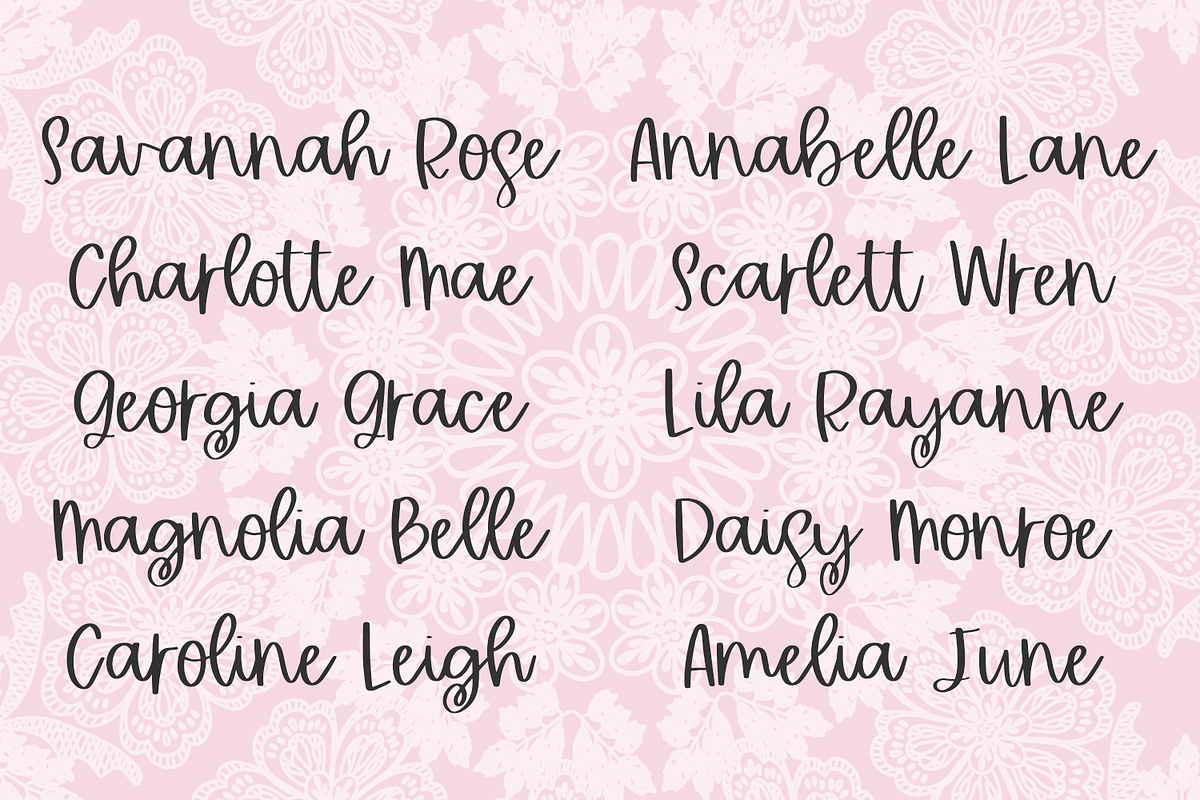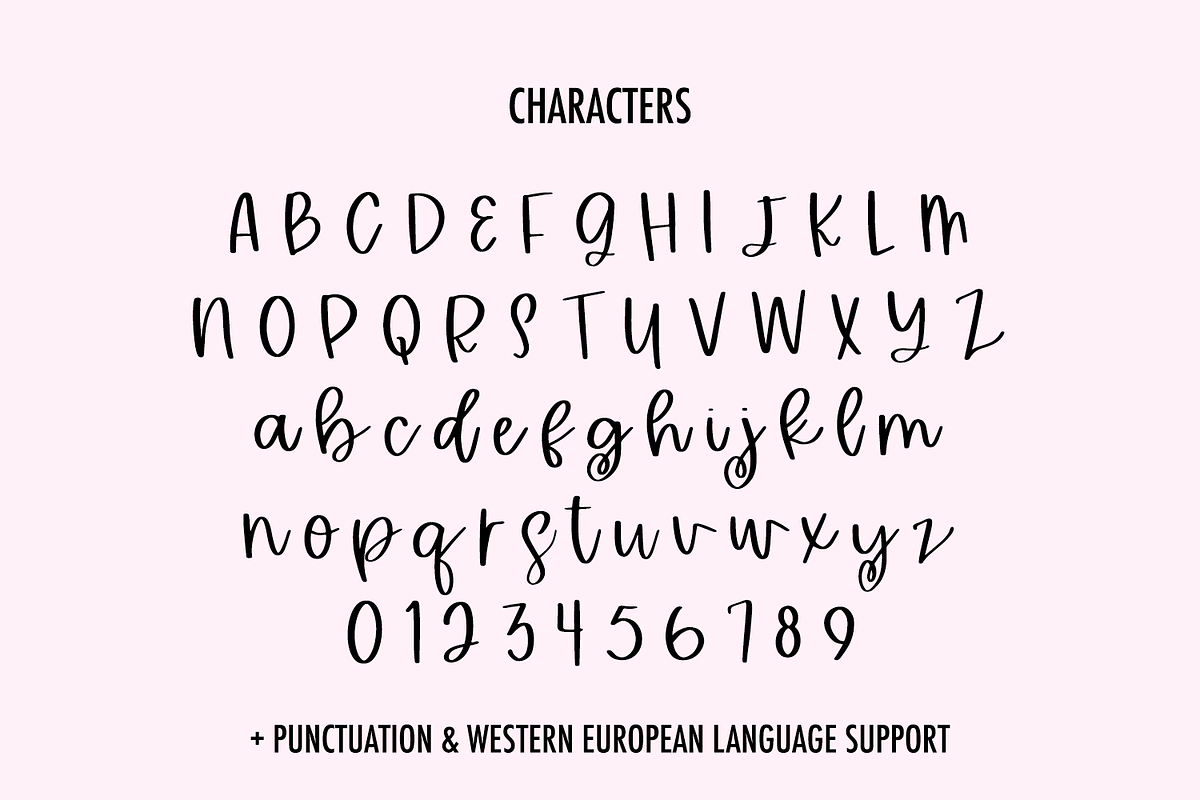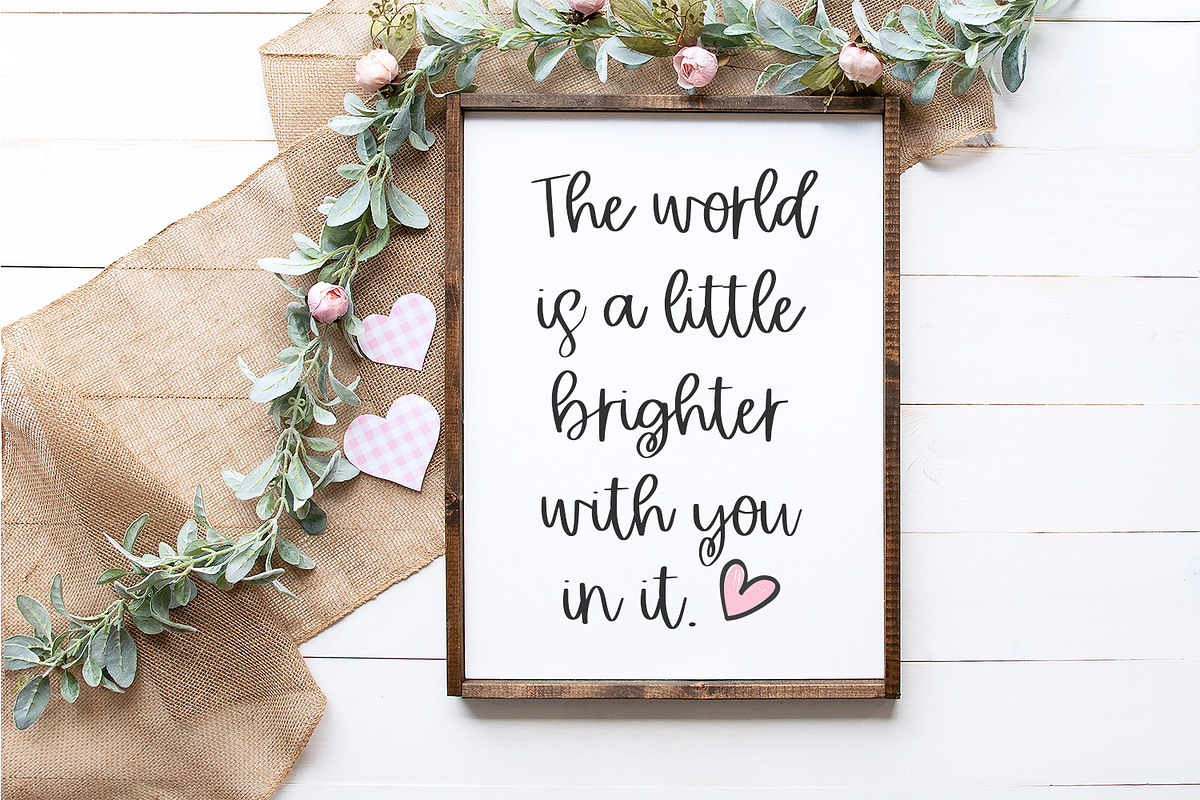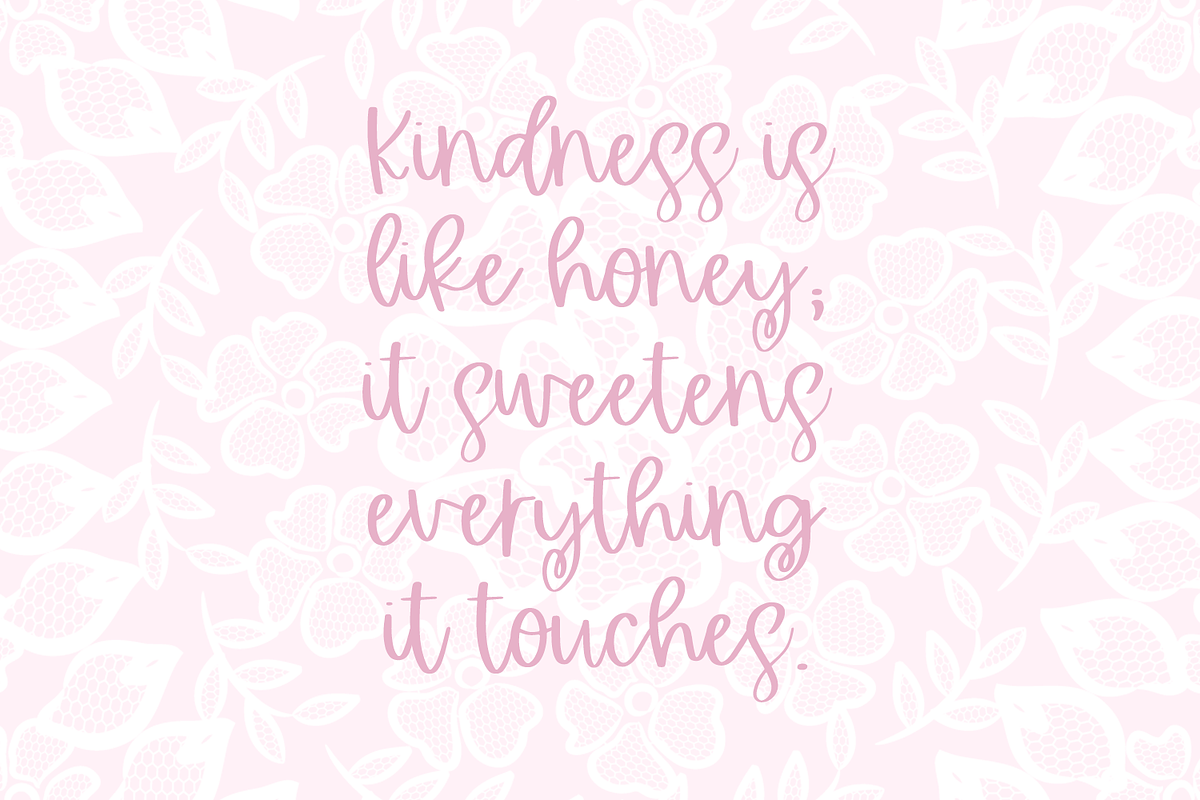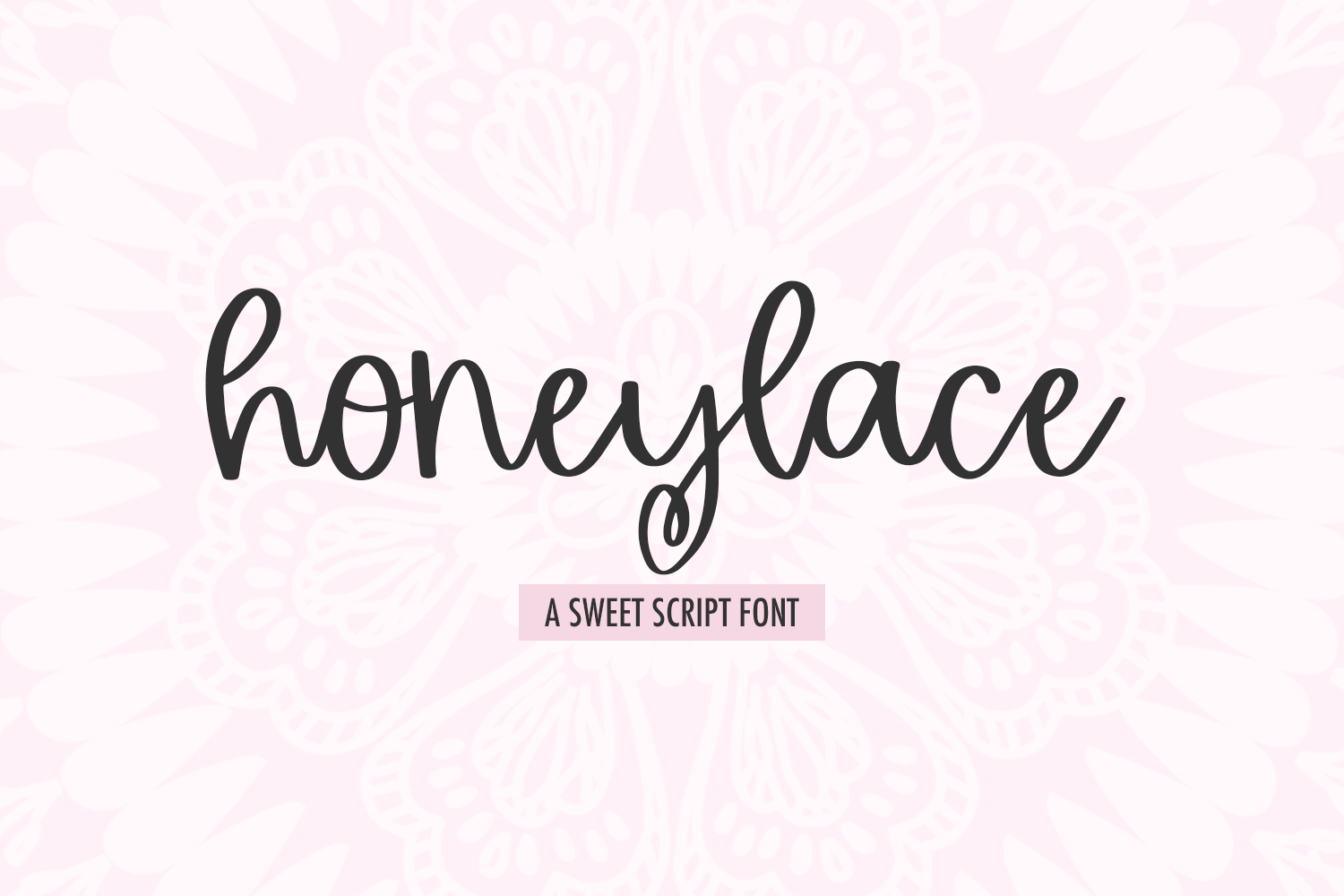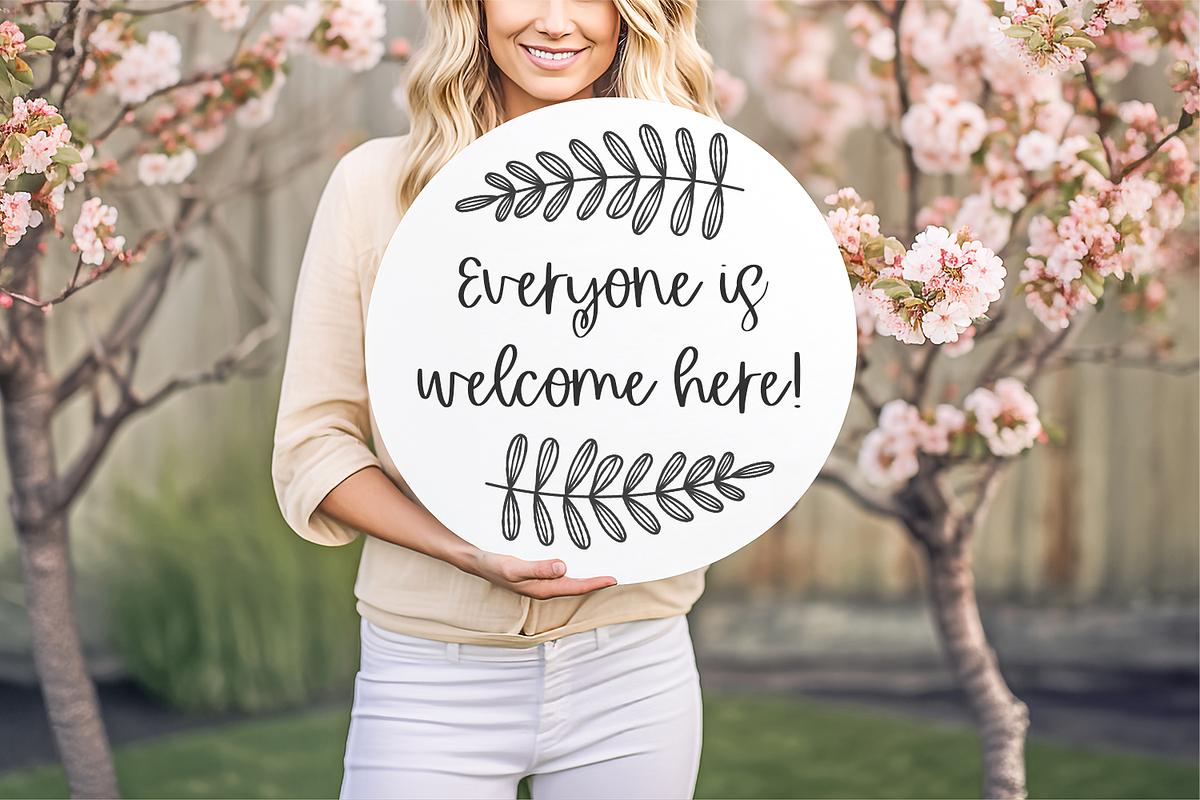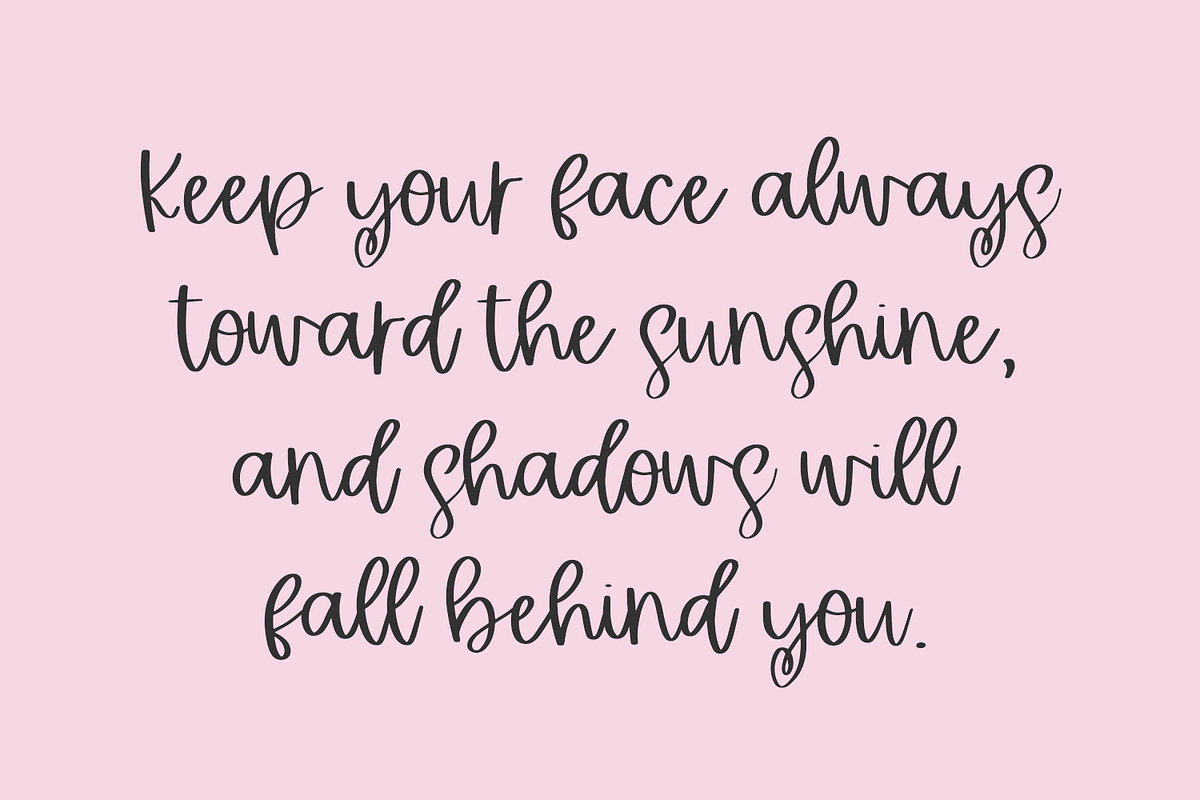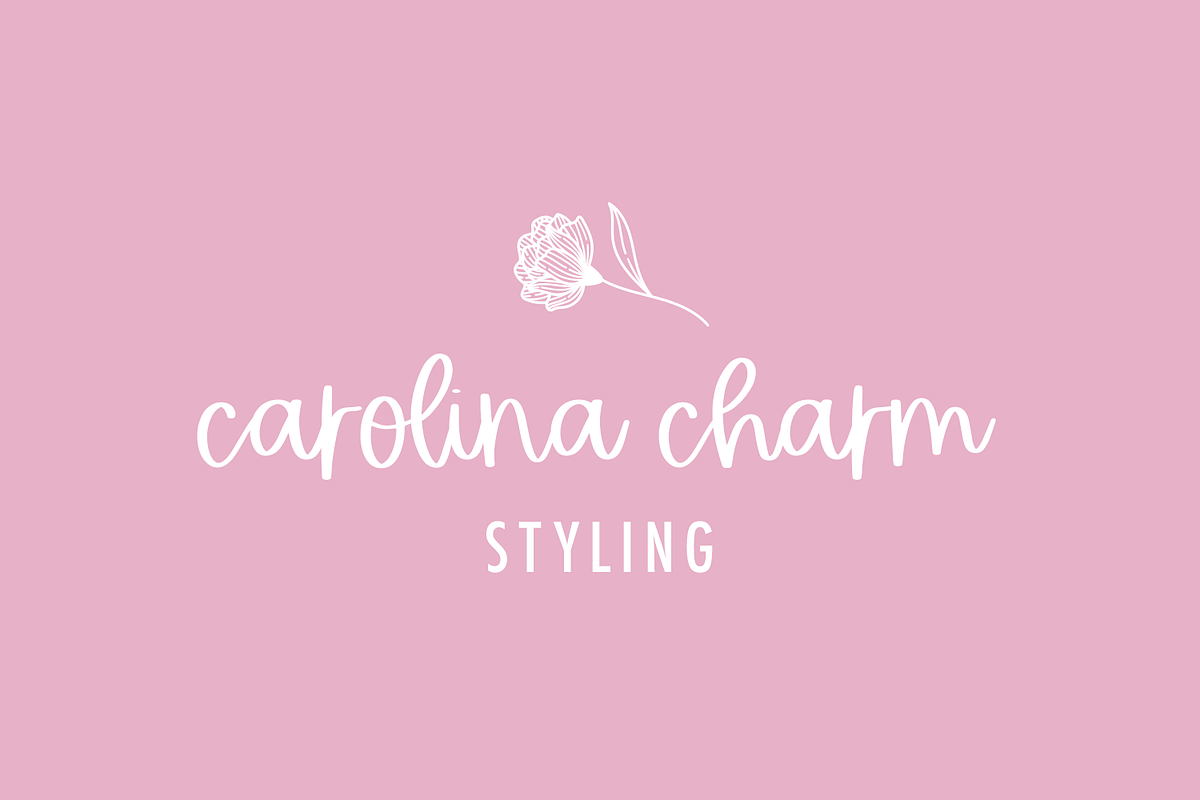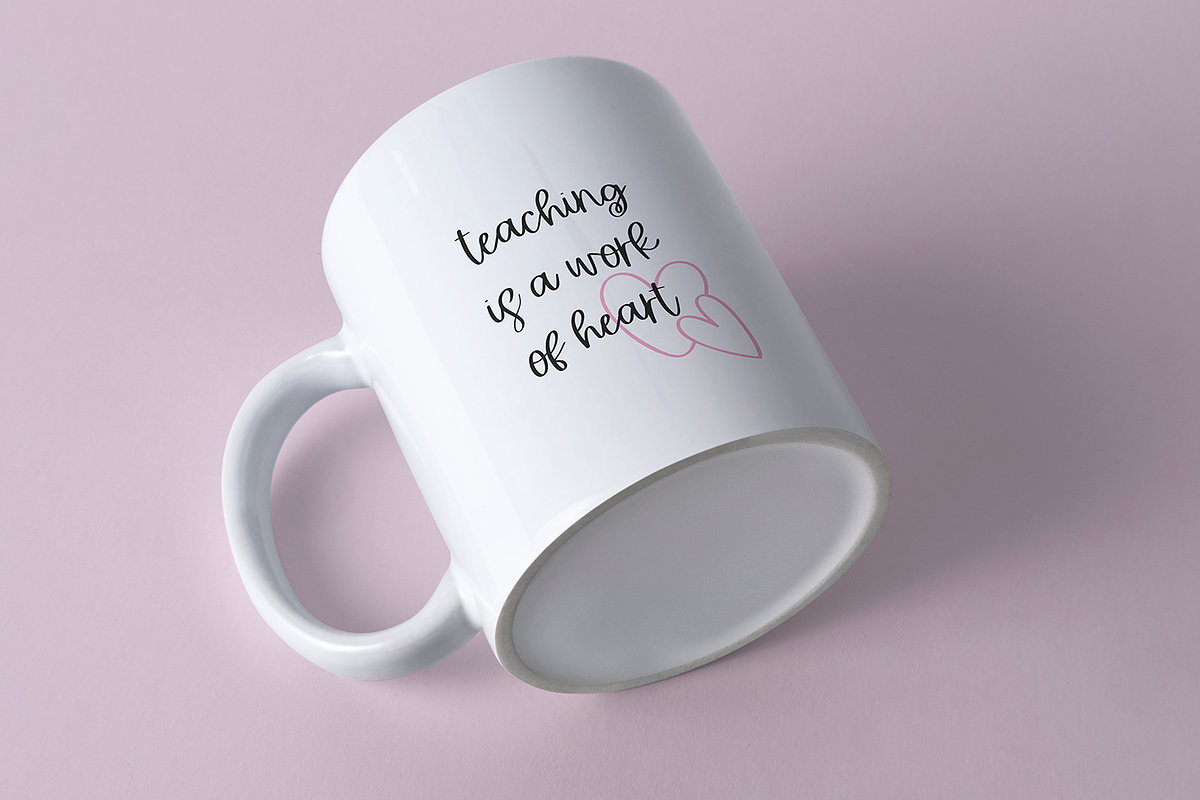
Honeylace Script Font
Meet Honeylace Script, a cute modern calligraphy font. Honeylace is adorable, bouncy, and quite legible, making it a great fit for a variety of printed products, logos & branding, SVG design, marketing material, social media, and more. Honeylace has a smooth edge that cuts very cleanly, so using it with your preferred vinyl cutting craft machine will yield high quality, beautiful designs!
- full upper + lowercase characters
- numbers + punctuation
- Western European language support